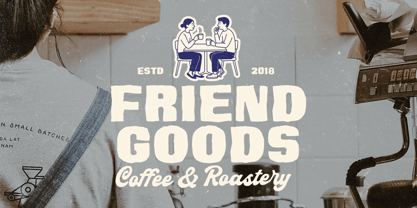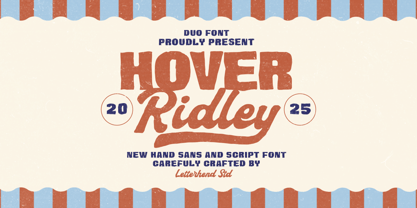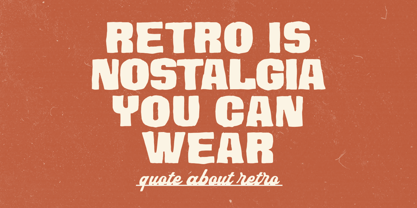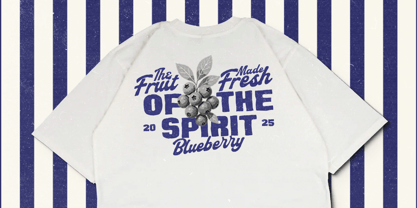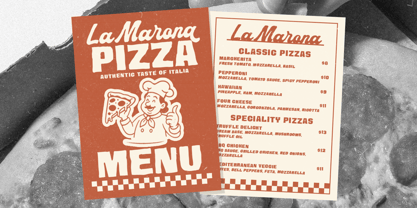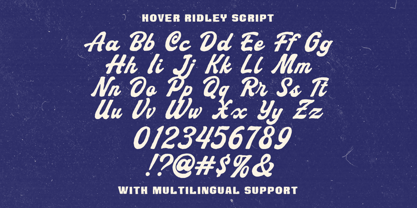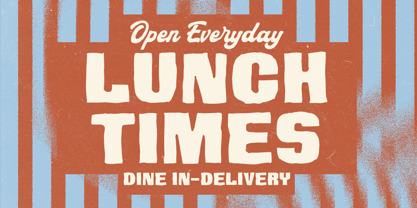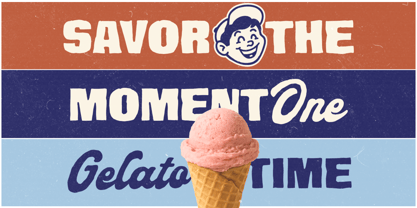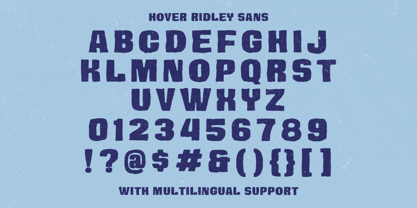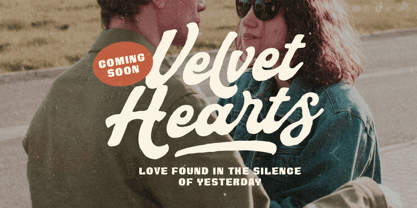
Hover Ridley
by Letterhend
The Hover Ridley Font Family was designed by Hendry Juanda and published by Letterhend. Hover Ridley contains 2 styles and family package options. More about this family
Hover Ridley is a bold hand-drawn duo font that combines a chunky sans with a smooth script, creating a nostalgic yet lively look. Its rustic texture and retro curves bring back vintage fairground and old signage vibes, perfect for logos, posters, packaging, or any design that needs a handcrafted and adventurous spirit. The balance between the sturdy sans and flowing script gives every layout a dynamic, friendly energy that feels both timeless and approachable Features : Uppercase & lowercase Numbers and punctuation Alternates & Ligatures Multilingual Support PUA encoded